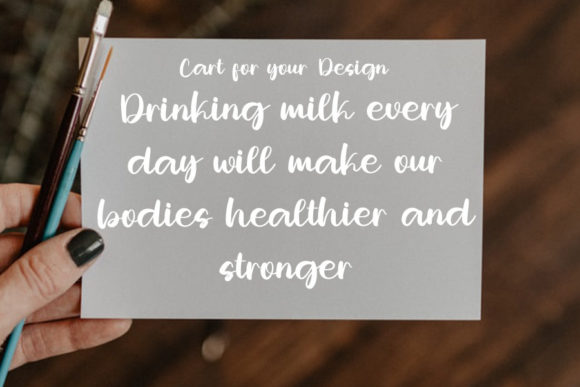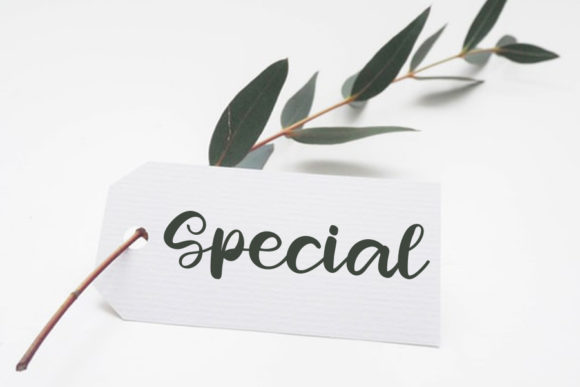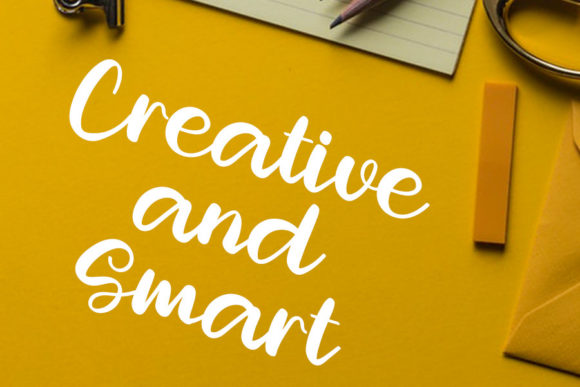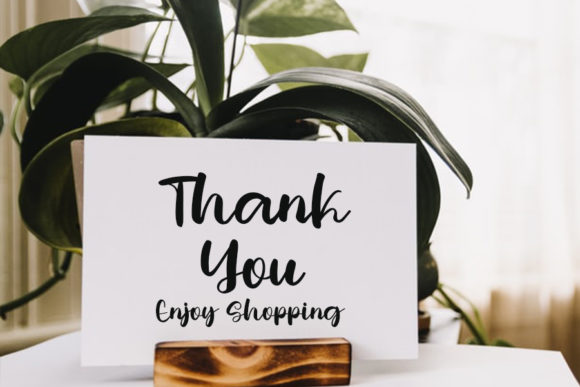
Dairy Milk Font: The Perfect Choice for Romantic Designs
Dairy Milk is a beautiful, dainty, and romantic script font that has captured the hearts of designers and crafters alike. This lovely font is perfect for adding a touch of elegance and sophistication to your designs, making it ideal for love letters, wedding invitations, and other romantic projects. In this article, we’ll explore the features and benefits of Dairy Milk Font, and show you how to incorporate it into your designs.
What is Dairy Milk Font?
Dairy Milk Font is a script font that boasts a delicate and feminine appearance. Its intricate letters and flowing curves make it perfect for creating romantic and whimsical designs. The font is highly legible, making it suitable for use in a variety of projects, from digital designs to print materials.
Features of Dairy Milk Font
- Romantic and Whimsical: Dairy Milk Font has a distinctly romantic and whimsical feel, making it perfect for designs that require a touch of elegance and sophistication.
- Highly Legible: The font is highly legible, even at small sizes, making it suitable for use in a variety of projects.
- Delicate and Feminine: The font’s delicate and feminine appearance makes it perfect for designs that require a touch of sweetness and charm.
- Easy to Use: Dairy Milk Font is easy to use and can be easily integrated into your designs, even if you’re not a seasoned designer.
Benefits of Using Dairy Milk Font
Using Dairy Milk Font in your designs can have a significant impact on the overall aesthetic and feel of your project. Here are some benefits of using this lovely font:
- Adds a Touch of Romance: Dairy Milk Font adds a touch of romance and whimsy to your designs, making it perfect for love letters, wedding invitations, and other romantic projects.
- Enhances Visual Appeal: The font’s delicate and feminine appearance enhances the visual appeal of your designs, making them more engaging and eye-catching.
- Versatile: Dairy Milk Font is versatile and can be used in a variety of projects, from digital designs to print materials.
Design Ideas Using Dairy Milk Font
Dairy Milk Font is perfect for a variety of design projects, including:
- Love Letters: Add a touch of romance to your love letters with Dairy Milk Font.
- Wedding Invitations: Use Dairy Milk Font to create beautiful and elegant wedding invitations.
- Stationery: Add a touch of whimsy and charm to your stationery with Dairy Milk Font.
- Digital Designs: Use Dairy Milk Font in your digital designs, such as social media graphics, blog posts, and email newsletters.
Dairy Milk Font is a beautiful and romantic script font that is perfect for designers and crafters who want to add a touch of elegance and sophistication to their designs. With its delicate and feminine appearance, highly legible letters, and ease of use, Dairy Milk Font is ideal for a variety of projects, from love letters to wedding invitations and digital designs. So why not give Dairy Milk Font a try and see the magic it can bring to your designs?